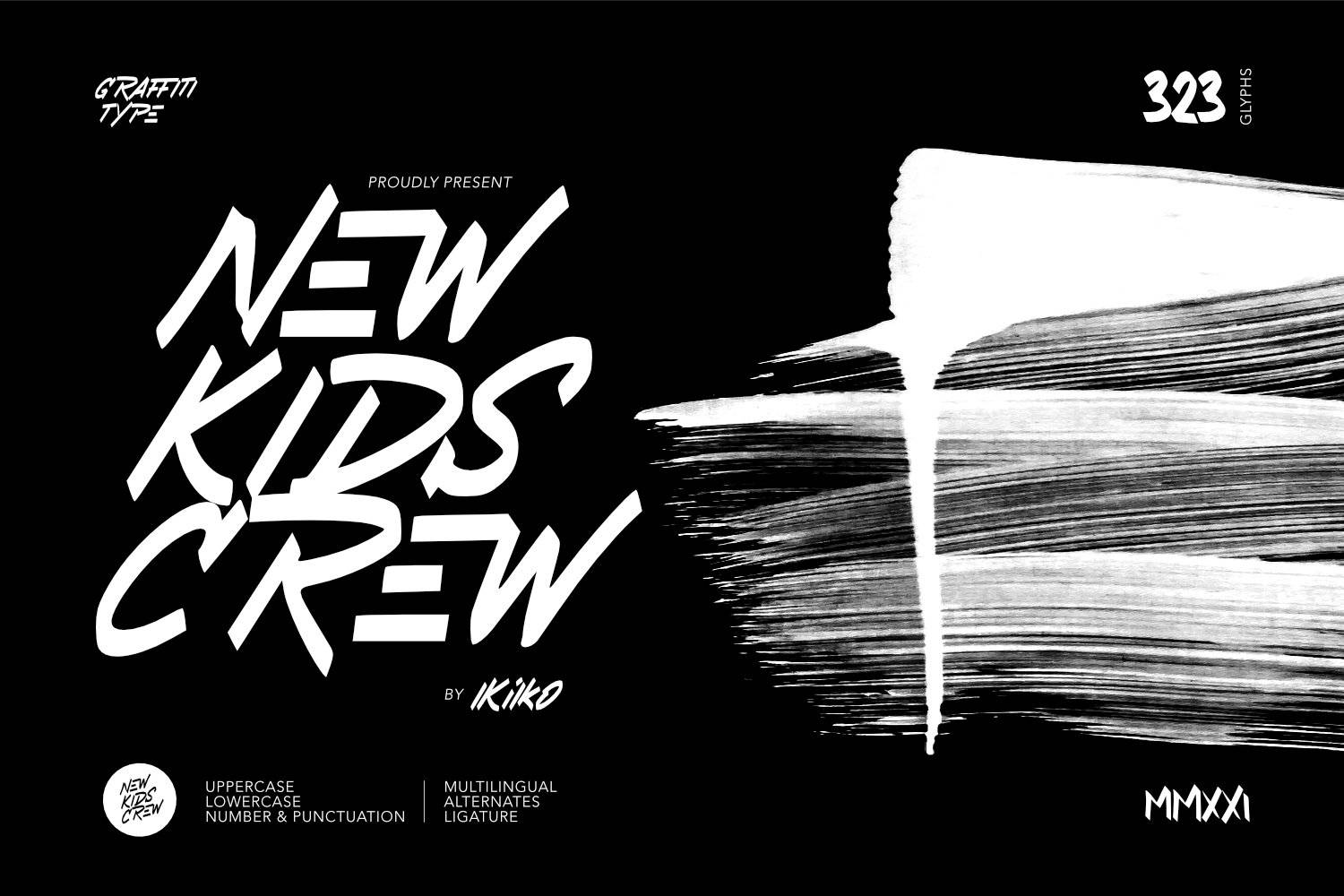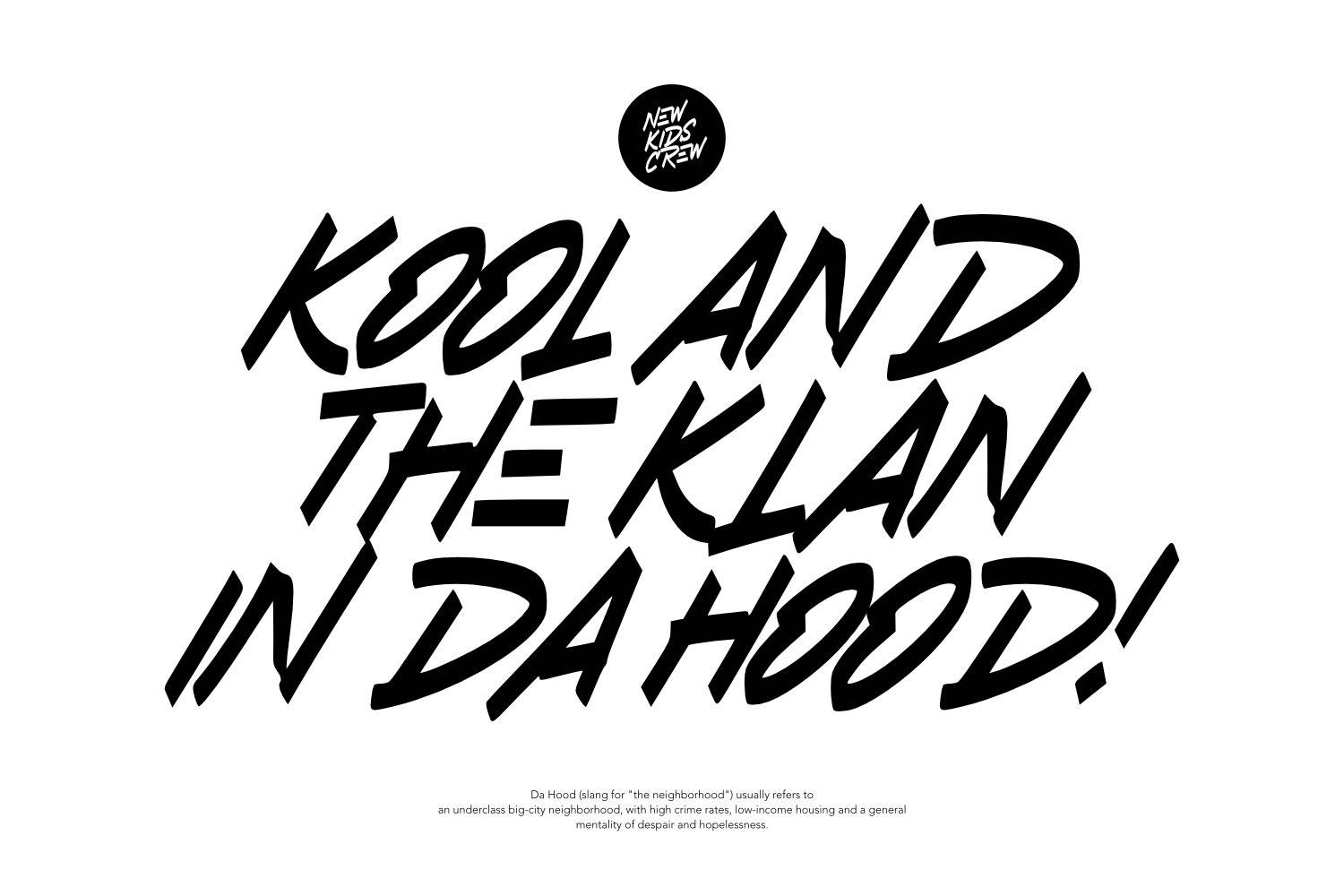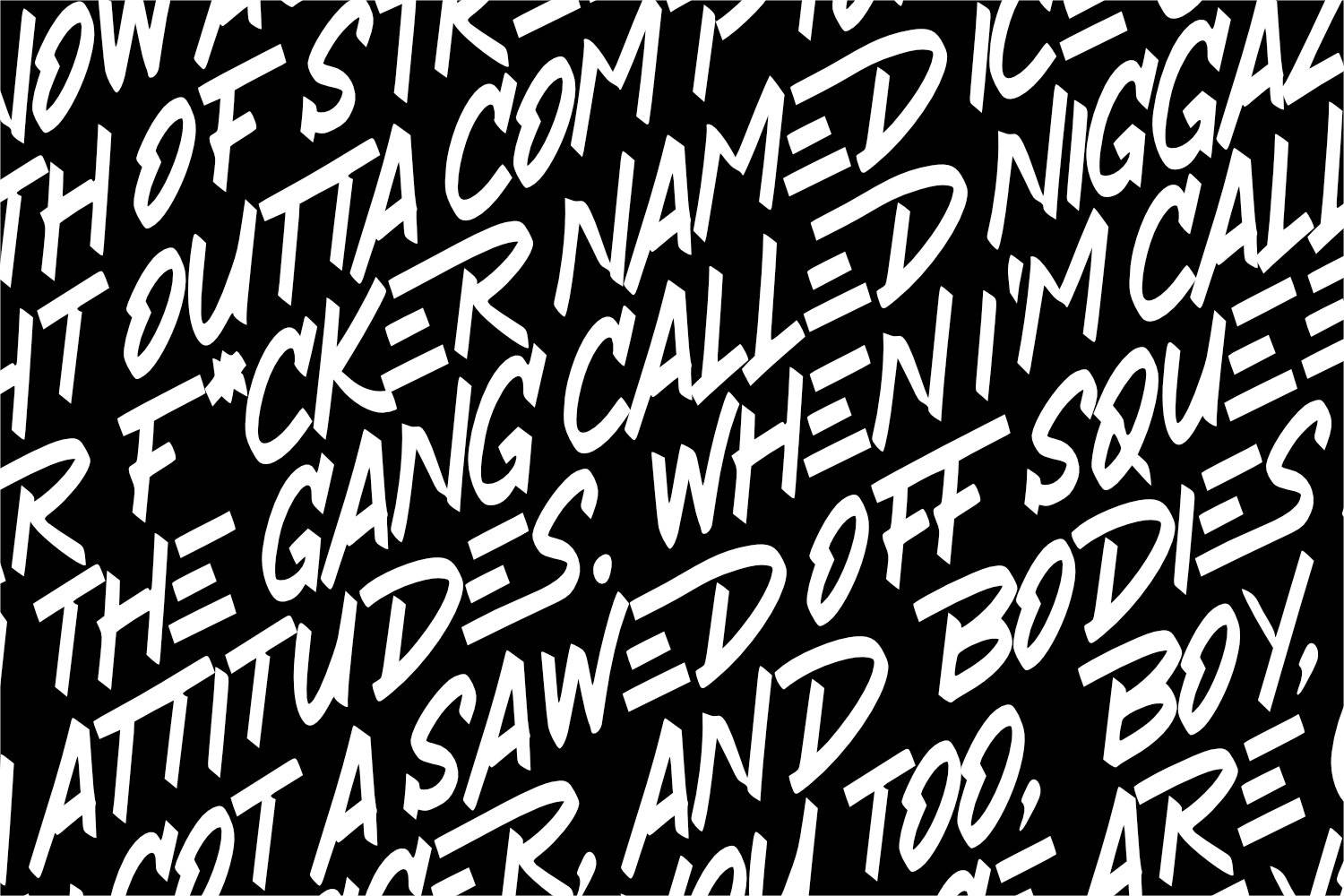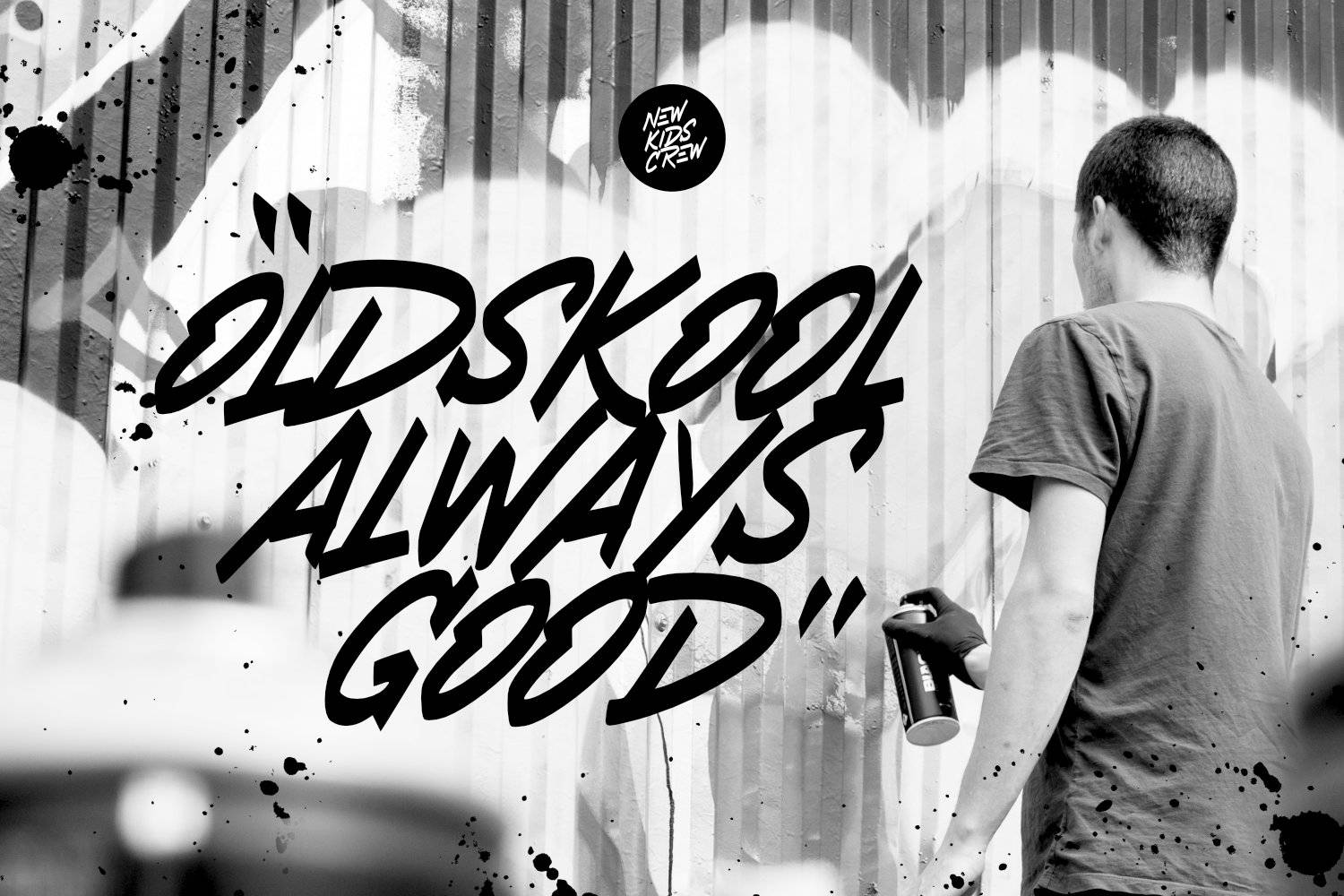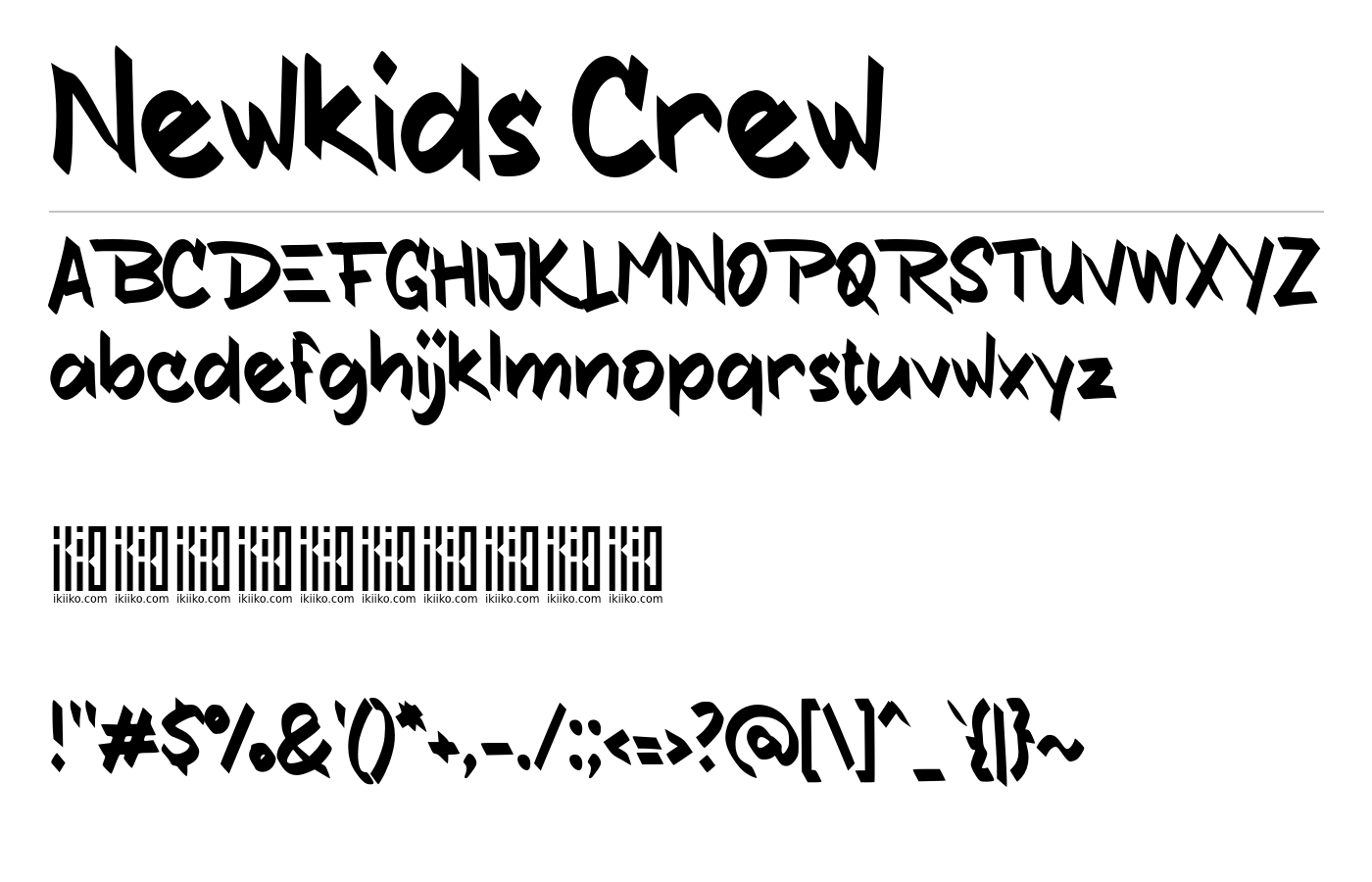
New Kids Crew is a bold, playful handwritten font with a casual, energetic vibe. Its irregular, slightly jagged letterforms and distinctive shapes give it a youthful, dynamic personality, making it perfect for creative projects, kids' products, or urban-inspired designs that need a fun and informal look. This font works well in headlines, logos, and branding where a striking, approachable style is desired.
| Font family | New Kids Crew Font |
| Designer | Andhika Pradana, Wahyu Eka Prasetya |